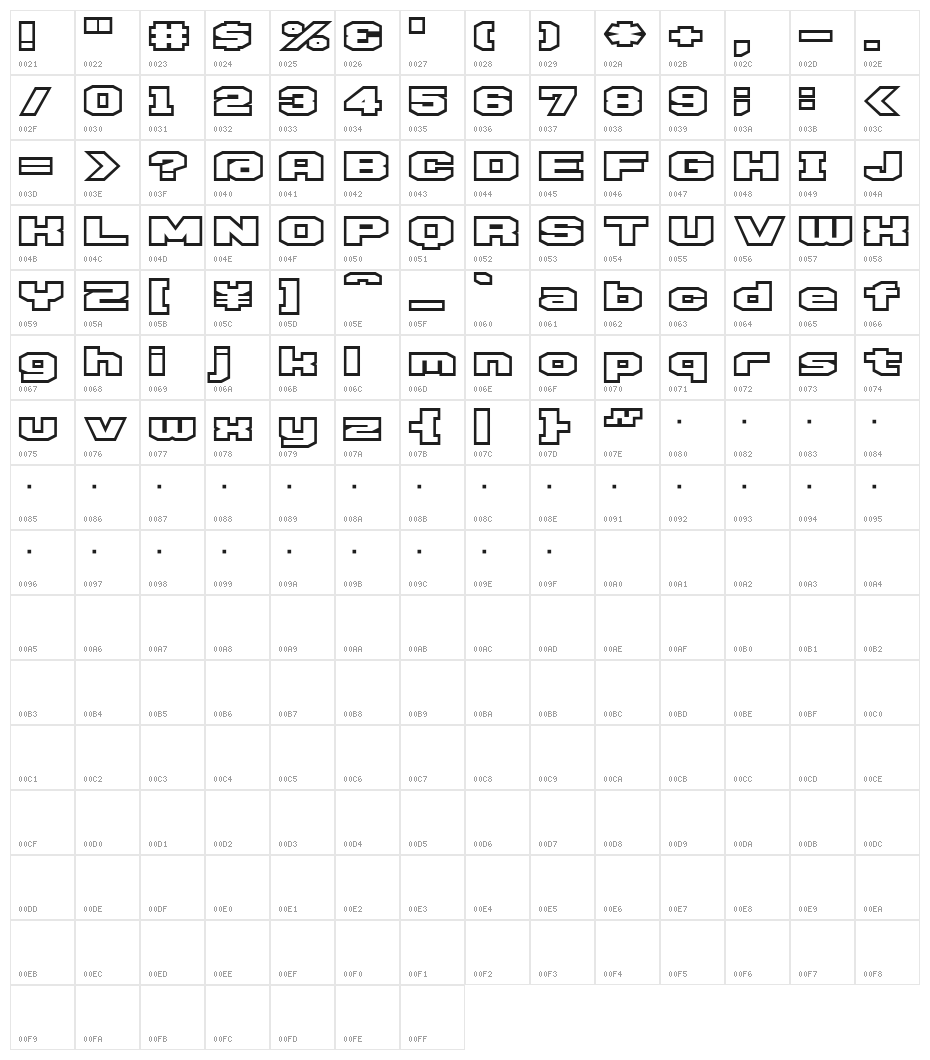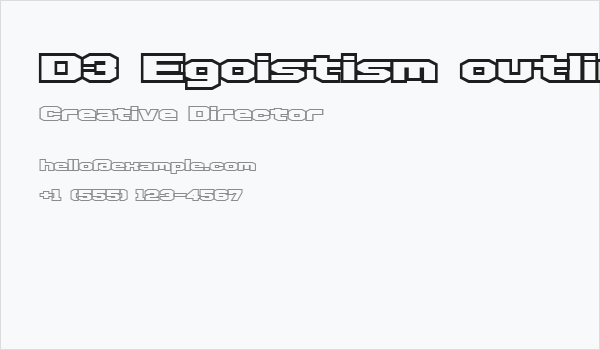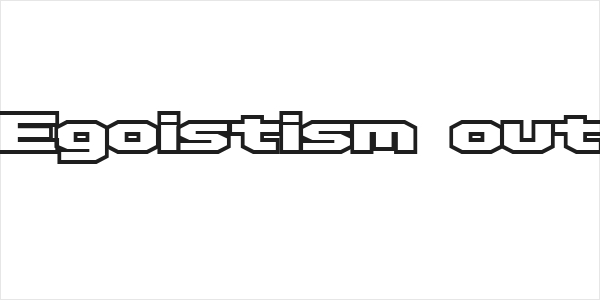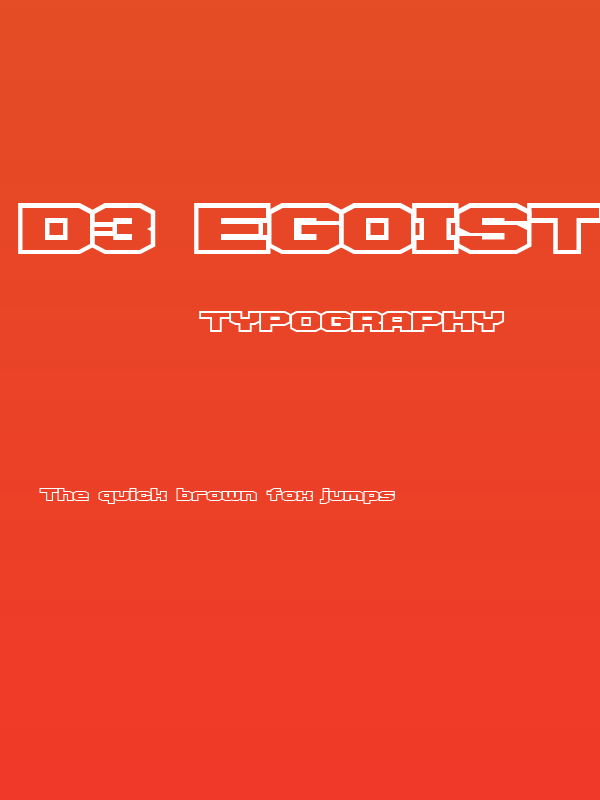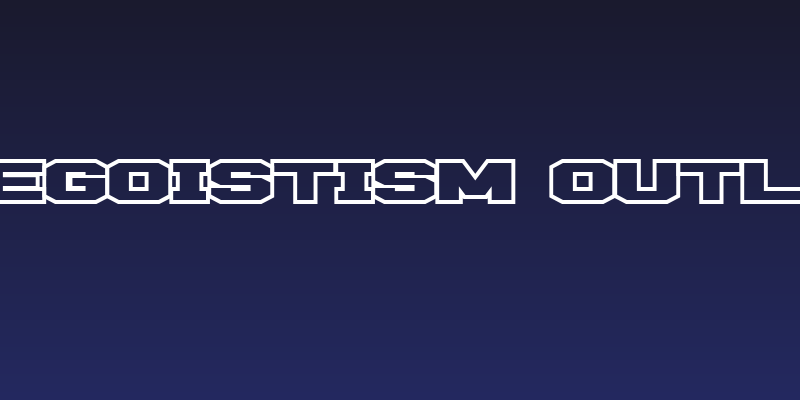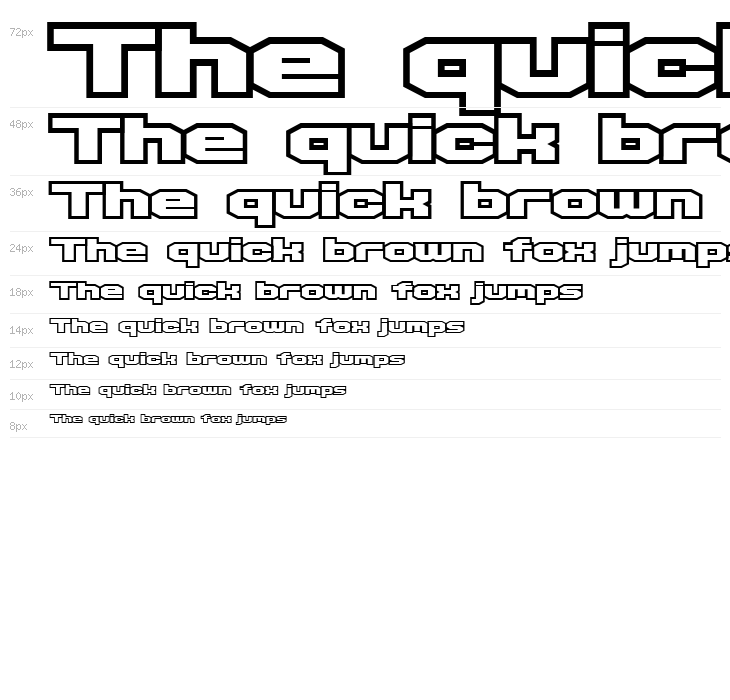
D3 Egoistism outline Font
D3 Egoistism outline Description
This font features a bold, geometric design with a distinct outline style. Each character is crafted with sharp angles and a uniform thickness, creating a strong, impactful appearance. The uppercase and lowercase letters maintain a consistent height, contributing to a cohesive look. The numerals and special characters follow the same design principles, ensuring uniformity across all glyphs. The outline effect adds a layer of depth, making the characters stand out against various backgrounds. This font's structured and modern aesthetic makes it suitable for projects that require a bold statement.
| Proposed Projects | Ideal for logos, posters, headlines, and branding materials that require a strong visual impact. |